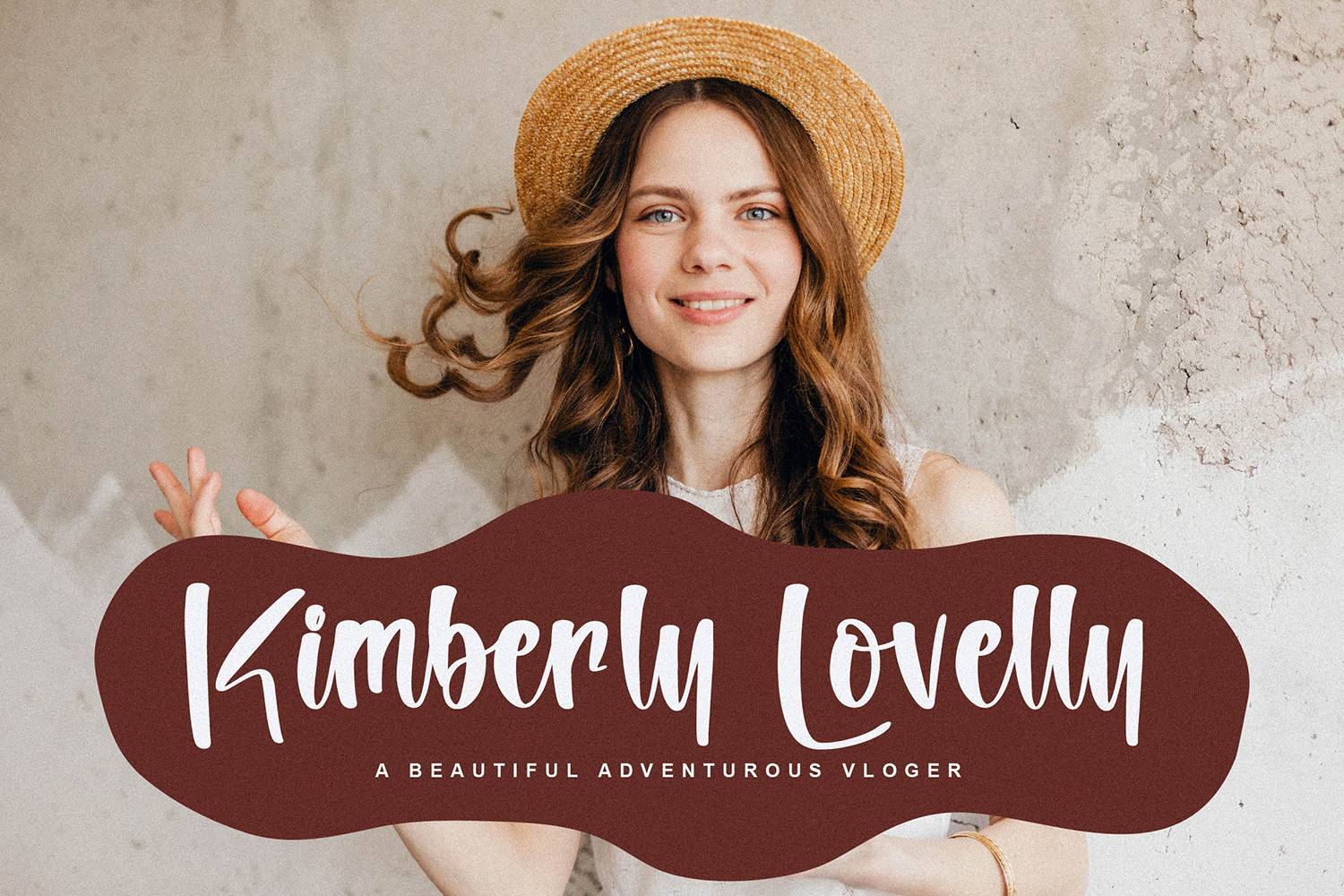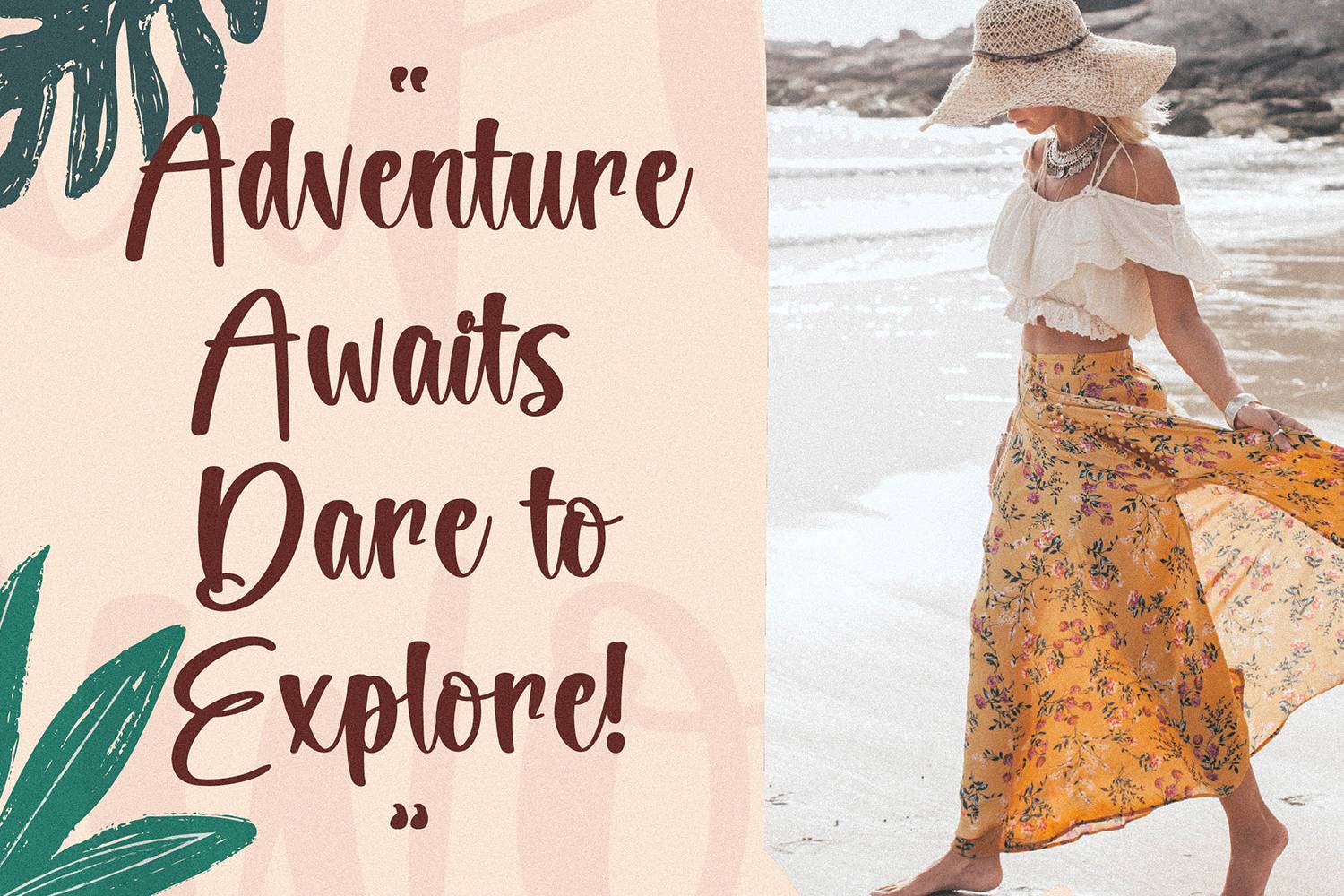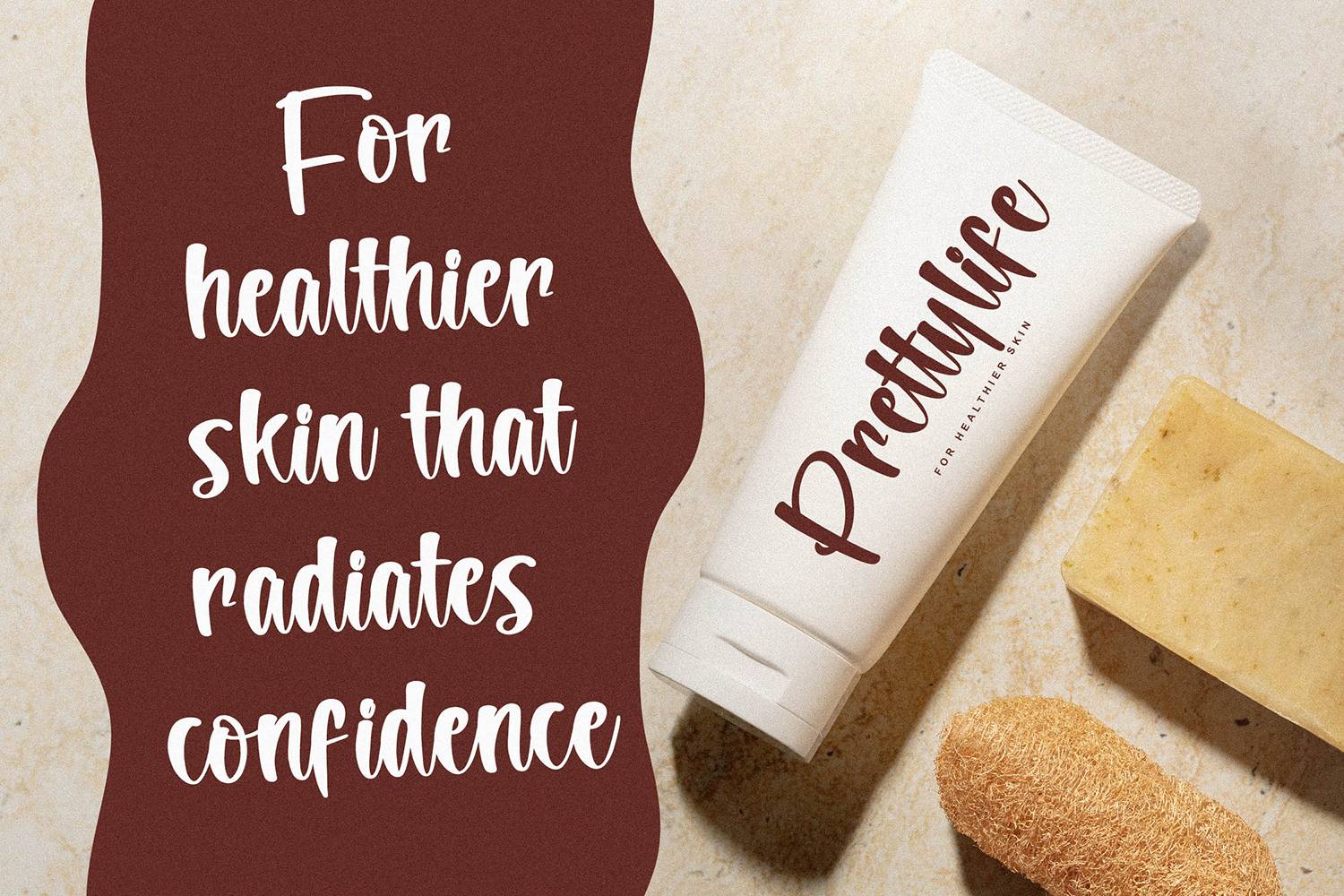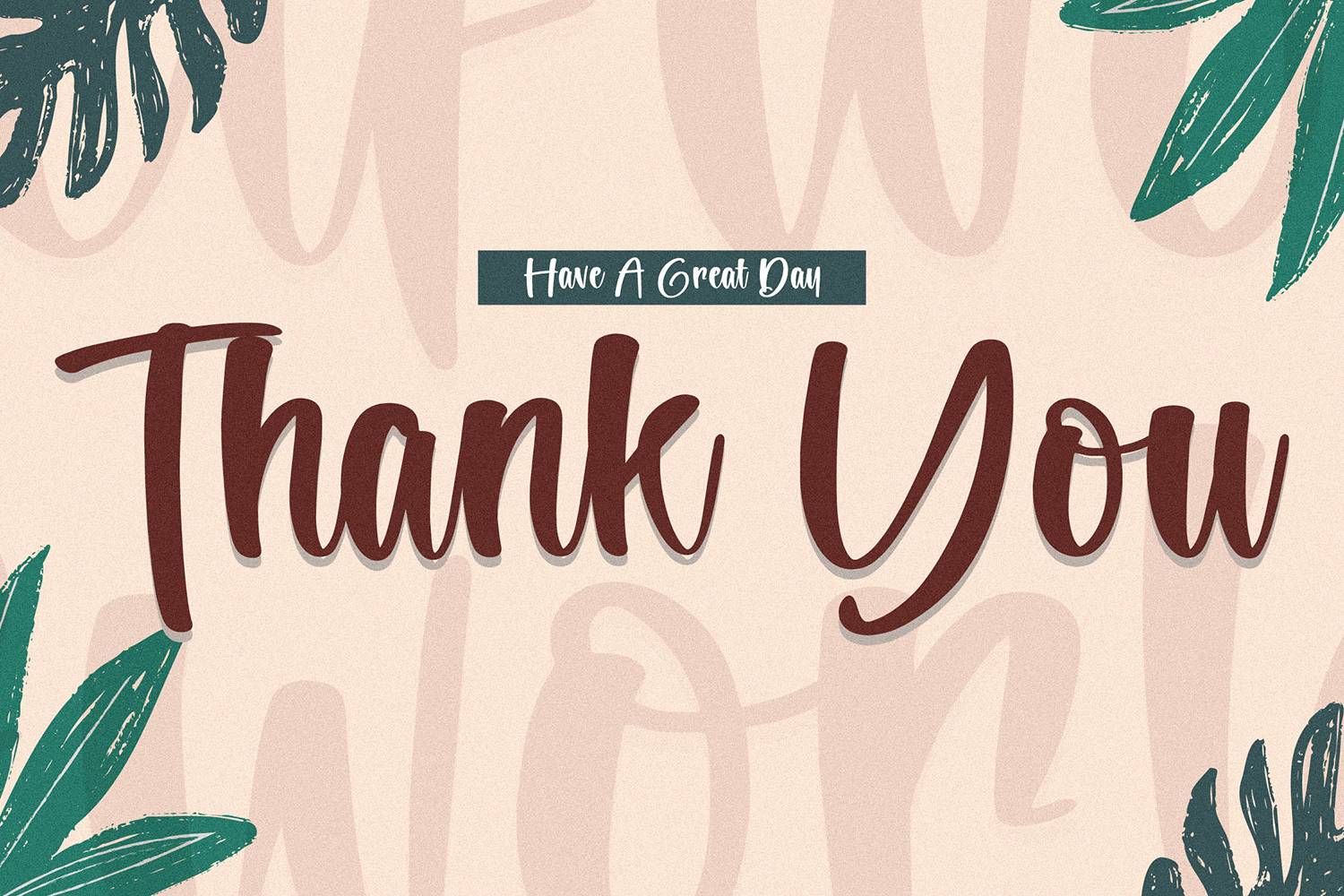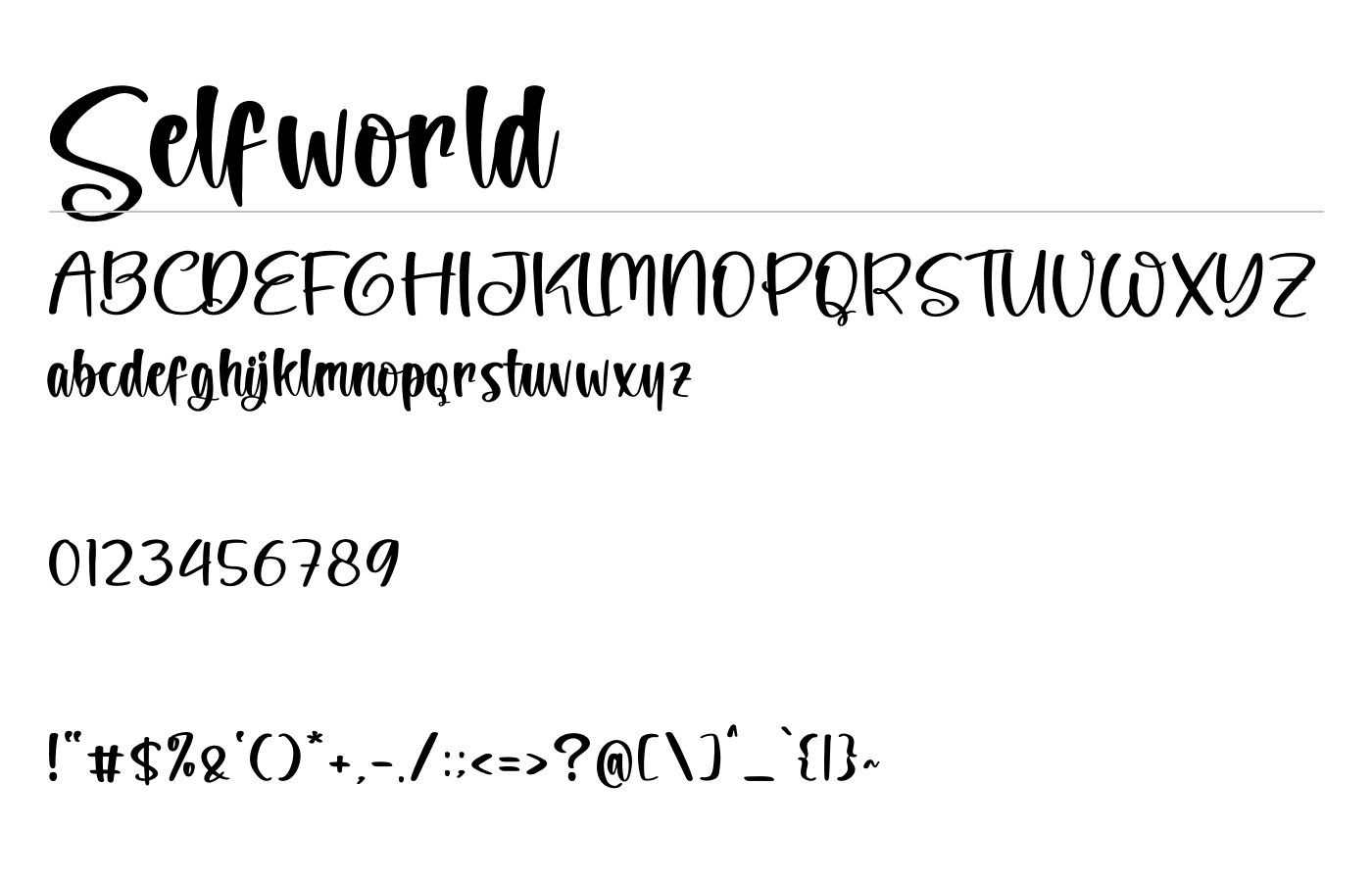
Selfworld is a playful and modern script font featuring smooth, brush-like strokes with a lively, handwritten feel. Its balanced mix of flowing uppercase and lowercase letters, along with casual numerals and symbols, makes it ideal for branding, invitations, and creative projects seeking a personal and friendly touch. This font works well where warmth and approachability are key, adding charm and personality to any design.
Selfworld Font
About Selfworld Font